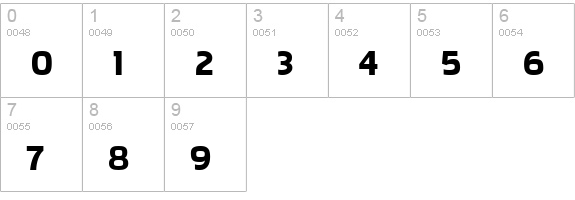
Pakenham Xp Blk Font Details
Pakenham Xp Blk font is a bold and modern typeface that exudes sophistication and style. Its sleek lines and strong presence make it perfect for headlines, titles, and branding materials. The font's sharp edges and robust design command attention and convey a sense of confidence. What makes Pakenham Xp Blk font even more appealing is that it is available for free download at FontsMarket.com. This means you can easily access this striking font and use it in your projects without any cost. Whether you're designing a poster, creating a logo, or crafting a website, Pakenham Xp Blk font will elevate your work and give it a professional touch. Don't miss out on this fantastic opportunity to enhance your designs with this exceptional typeface that is both stylish and free to use.